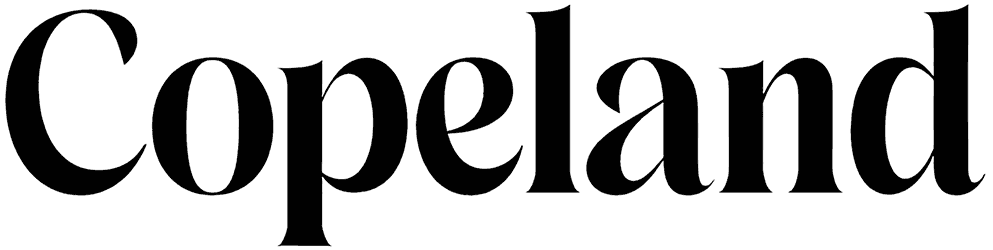
Copeland Font
Some typefaces give a message wide shoulders, bold, confident, and unmistakable. Copeland font belongs in that club. With its strong serifs, crisp strokes, and refined structure, this serif font doesn’t just carry a headline; it elevates it. There’s a subtle elegance woven into its geometry that feels equally at home on a heritage brand identity as it does on a modern editorial spread or packaging design.
Use Copeland for logos, posters, book covers, fashion brands, editorial headlines, or signage systems, wherever you need typography to feel intentional, confident, and timeless. Its presence gives your words a voice that feels authoritative without ever feeling rigid. Sometimes a font doesn’t just deliver text; it commands attention with poise.